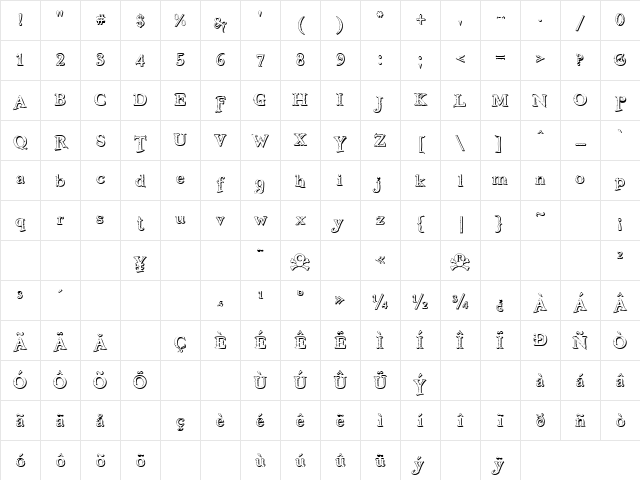
Freebooter Shadow Regular
Freebooter Shadow Family
Freebooter Shadow Regular
Complete Freebooter Shadow Regular glyph index. Displaying only characters natively supported by Freebooter Shadow Regular font.
Design Context for Freebooter Shadow
Freebooter Shadow is built around its visual character rather than neutral utility - its distinctive forms are designed to make an impression at display sizes.
Font Pairing: Pair with a clean neutral sans-serif for body copy to let Freebooter Shadow's character lead without overwhelming the composition.
Pro Tip: Use Freebooter Shadow exclusively at display sizes - it was designed to be seen, not read at length. Let a neutral companion handle body copy.